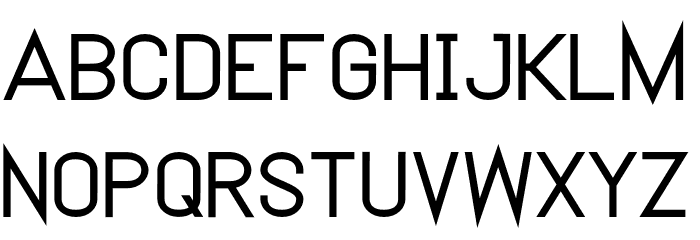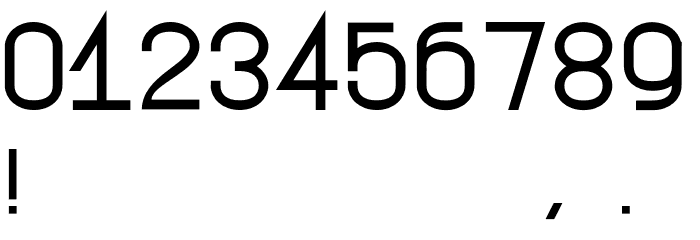
NEUTRON Font
This font features a clean and modern sans-serif style with a geometric structure. The characters are uniform in width, providing a balanced and harmonious appearance. The uppercase letters are bold and assertive, while the lowercase letters maintain a consistent height, contributing to a streamlined look. The numerals are clear and easily distinguishable, making them suitable for both digital and print applications. The special characters are designed to complement the overall aesthetic, ensuring versatility across various uses. The font's simplicity and clarity make it ideal for contemporary design projects.
A modern, geometric sans-serif font with a clean and balanced appearance.